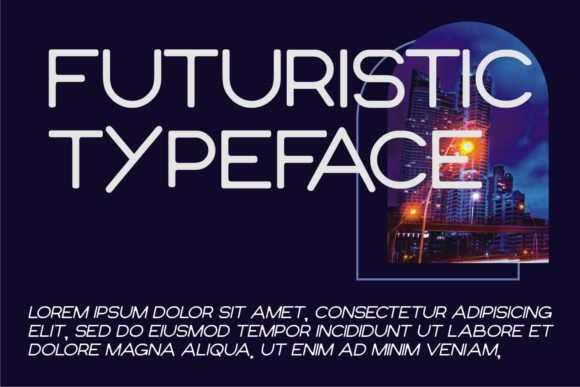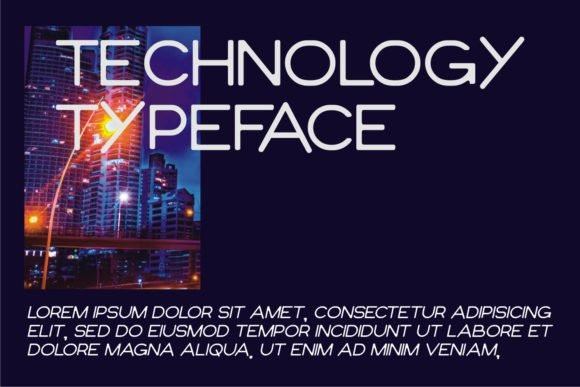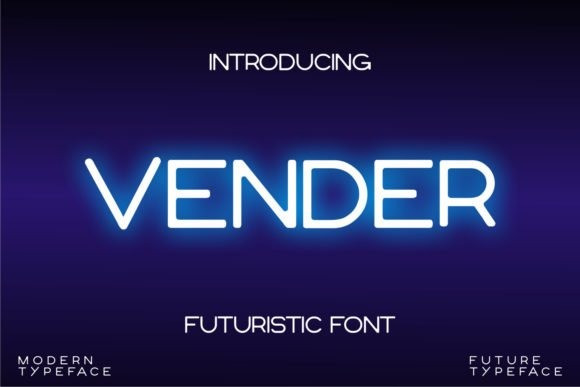
Vender Font
Vender is a modern and cool display font. This font is ideal for writing web designs, business cards, or pretty much anything else that requires a futuristic, unique touch.